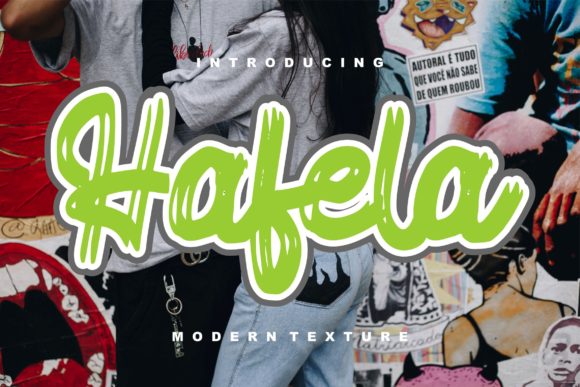
Journey into the realm of Hafela, a captivating script font that will ignite your creativity and leave a lasting impression. Crafted by the talented hands of Vunira, Hafela embodies the essence of joy, individuality, and genuineness. Its enchanting handwritten style transforms ordinary words into captivating works of art, adding a touch of magic to every design project.
With Hafela as your creative companion, you'll embark on a journey of self-expression, turning your ideas into stunning realities. Its playful and distinctive characters dance across the page, creating a visual spectacle that commands attention and captivates hearts. Hafela is not just a font; it's a gateway to a world of boundless imagination, where creativity knows no limits.
Gone are the days of mundane typography. With Hafela, you'll elevate your designs to extraordinary heights. Whether you're crafting logos, posters, invitations, or social media graphics, Hafela adds a touch of whimsy and charm that sets your work apart from the ordinary. It's the perfect font for those who want to make a bold statement and leave an unforgettable impression.
Hafela's versatility knows no bounds. It's equally at home in both digital and print applications, effortlessly adapting to any medium you choose. Its smooth, flowing lines and carefully crafted details ensure readability and visual appeal, even in smaller sizes. Whether you're designing for web, print, or branding, Hafela delivers exceptional results, making your message shine brighter than ever before.
Join the creative revolution and embrace the magic of Hafela. Let its playful spirit ignite your imagination and transform your designs into captivating masterpieces. Experience the joy of self-expression and create visual wonders that resonate with your audience. Hafela is more than just a font; it's a catalyst for creativity, an invitation to let your imagination run wild, and a passport to a world of endless possibilities.